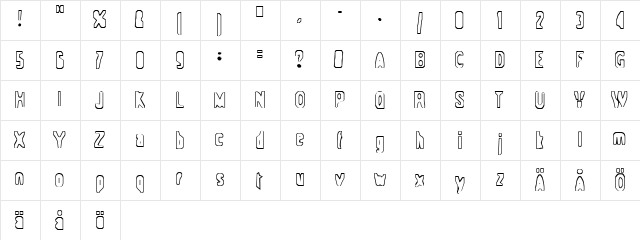
Space-ship 354 Shuttle..
Design Context for Space-ship 354 Typeface
Space-ship 354 is a composed and adaptable typeface that performs quietly and consistently across a wide range of design contexts.